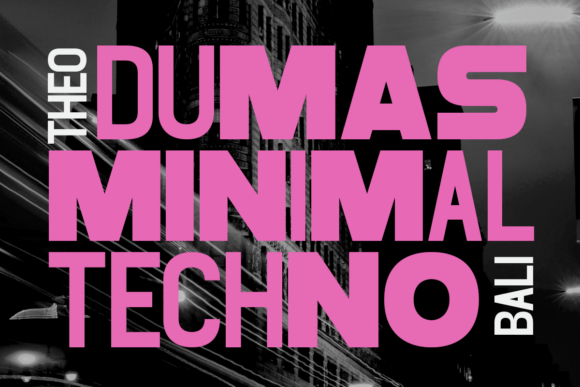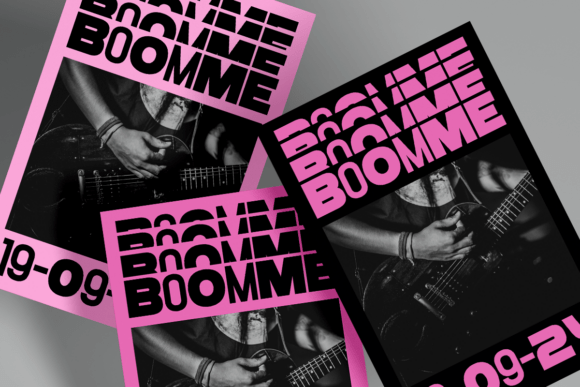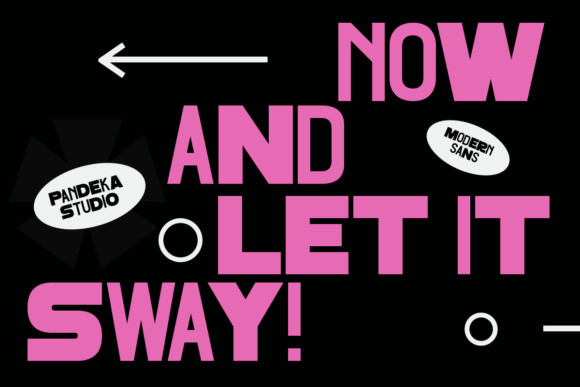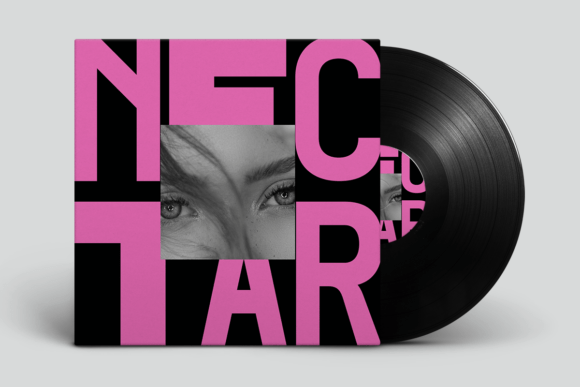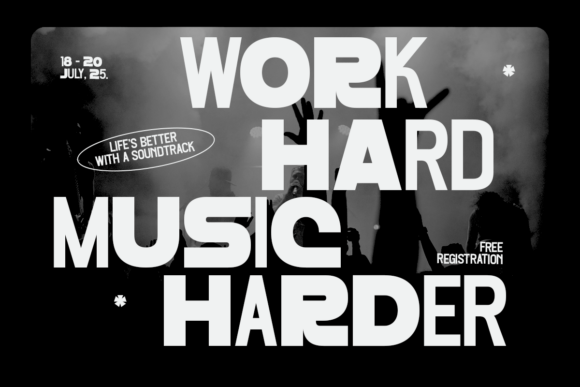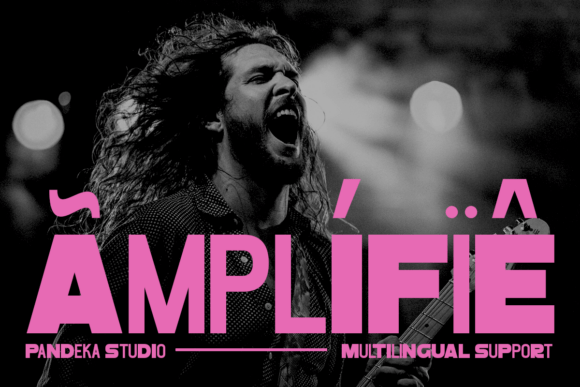
Introducing Boomme Font: The Ultimate Urban Display Font
In the world of typography, fonts play a crucial role in conveying the tone and personality of a brand or creative project. For designers and crafters looking for a bold and modern display font that captures the energy and rhythm of urban life, Boomme Font is the perfect choice. Designed with strong geometric shapes and a confident, contemporary aesthetic, Boomme brings a stylish and powerful presence to your creative projects.
What Makes Boomme Font Stand Out?
Boomme Font is a bold and modern display font that embodies the spirit of urban living. Its clean structure and impactful character design make it ideal for brands and creatives who want to make a statement. Every letter delivers a sense of strength, confidence, and motion, perfect for modern typography that demands attention. Whether you’re working on music posters, streetwear branding, club flyers, urban editorials, or event promotions, Boomme Font is the perfect choice.
Key Features of Boomme Font
- Bold and Modern Design: Boomme Font features a bold and modern design that is perfect for making a statement.
- Geometric Shapes: The font is designed with strong geometric shapes that give it a confident and contemporary aesthetic.
- Clean Structure: Boomme Font has a clean structure that makes it easy to read and understand.
- Impactful Character Design: Every letter is designed to deliver a sense of strength, confidence, and motion.
- Multilingual Support: Boomme Font comes with multilingual support, making it perfect for use in both print and digital work.
- 1 Regular Style: The font comes in 1 Regular style, including uppercase, lowercase, numbers, punctuation, and multilingual support.
Perfect for Urban-Inspired Projects
Boomme Font is perfect for designers and crafters who work on urban-inspired projects. Its bold and modern design makes it ideal for music posters, streetwear branding, club flyers, urban editorials, and event promotions. The font’s confident and contemporary aesthetic ensures that your project stands out from the crowd and captures the pulse of the modern city.
Why Choose Boomme Font?
There are many reasons why designers and crafters choose Boomme Font for their creative projects. Here are a few:
- Unique and Eye-Catching: Boomme Font is a unique and eye-catching font that grabs attention.
- High-Quality Design: The font is designed with high-quality geometric shapes that ensure it looks great in any project.
- Flexible and Versatile: Boomme Font comes with multilingual support, making it perfect for use in both print and digital work.
Tips for Using Boomme Font
Here are a few tips for using Boomme Font in your creative projects:
- Use it as a Title Font: Boomme Font is perfect for use as a title font for music posters, streetwear branding, and event promotions.
- Pair it with Other Fonts: The font pairs well with other fonts, making it perfect for use in combination with other typography.
- Experiment with Colors: Boomme Font looks great in a variety of colors, so don’t be afraid to experiment and find the perfect color for your project.
In conclusion, Boomme Font is a bold and modern display font that embodies the energy and rhythm of urban life. Its clean structure and impactful character design make it ideal for brands and creatives who want to make a statement. With its multilingual support and flexible design, Boomme Font is perfect for use in both print and digital work. Whether you’re working on music posters, streetwear branding, club flyers, urban editorials, or event promotions, Boomme Font is the perfect choice.